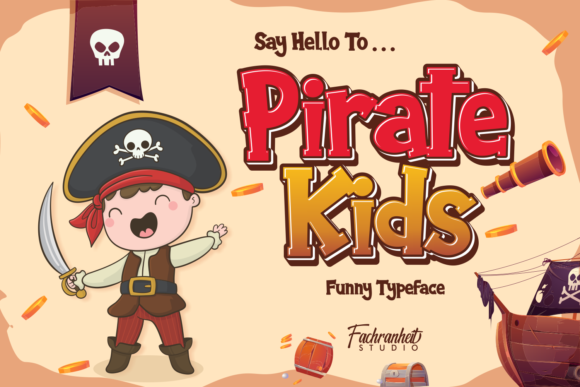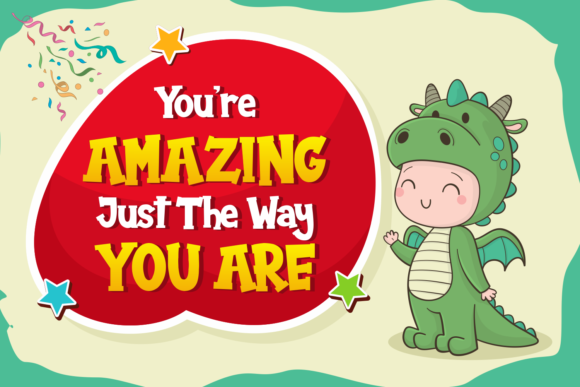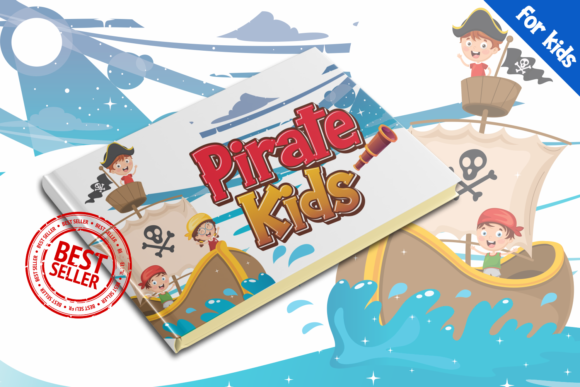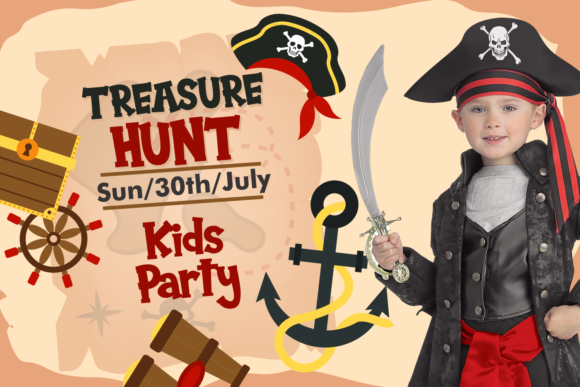
Pirate Kids Font
About the Pirate Kids Font
Elevate your designs with Pirate Kids Font, a font that combines sophistication with readability. Pirate Kids is a cute and casual display font with an incredibly friendly feel. Whether you’re looking for fonts for Instagram or calligraphy scripts for DIY projects, this font will turn any creative idea into a true piece of art!
Pirate Kids is ideally suited for headlines, short playful captions, logos for children’s brands, and packaging design where a friendly, approachable aesthetic is desired. Its informal nature makes it less suitable for body text or UI elements requiring high readability. Avoid using it for large blocks of text or applications demanding formal sophistication.
The font’s inherently cheerful and slightly mischievous personality pairs well with clean sans-serif fonts like Open Sans for a balanced contrast, or a more geometric sans-serif for a modern feel. For a touch of elegance, consider pairing it with a delicate script font, but keep the script usage minimal to avoid overwhelming the playful energy of Pirate Kids.
Its informal, friendly character makes it a great choice for projects aimed at children or young adults, brands focused on fun and lightheartedness, and designs requiring a casual, hand-drawn aesthetic.
Pirate Kids Font Example